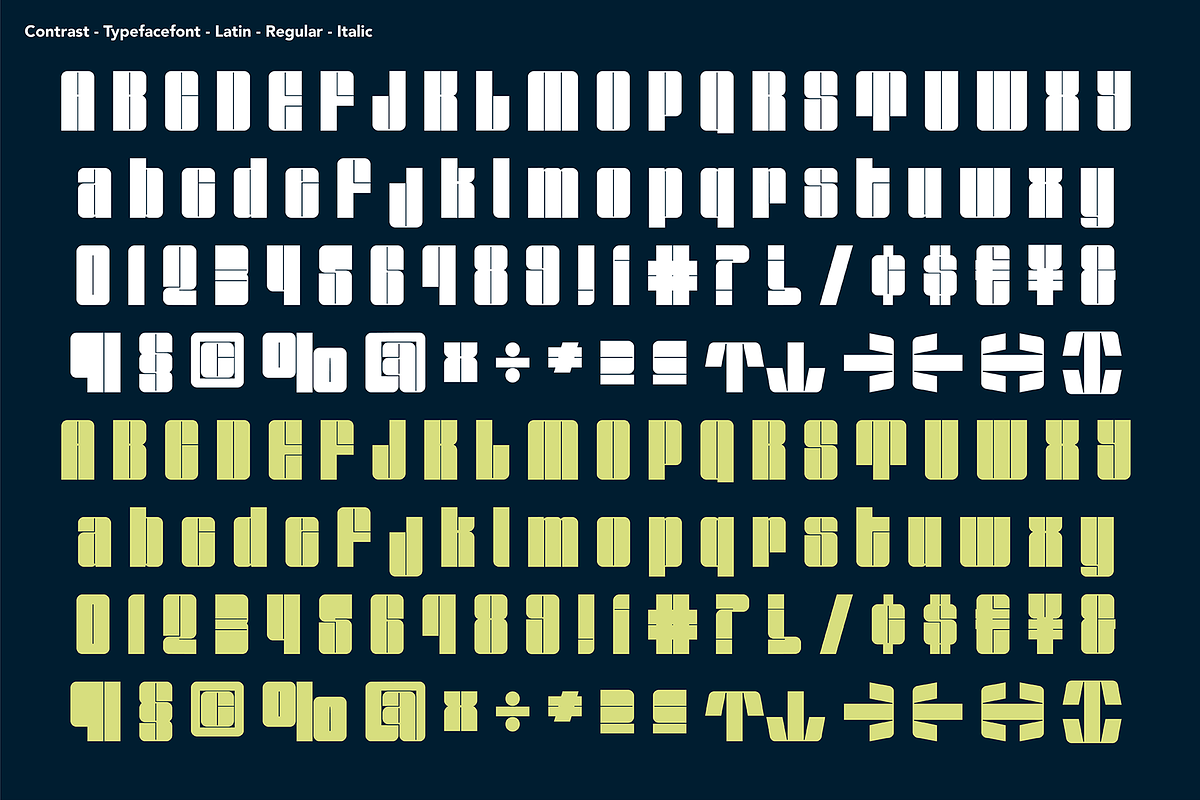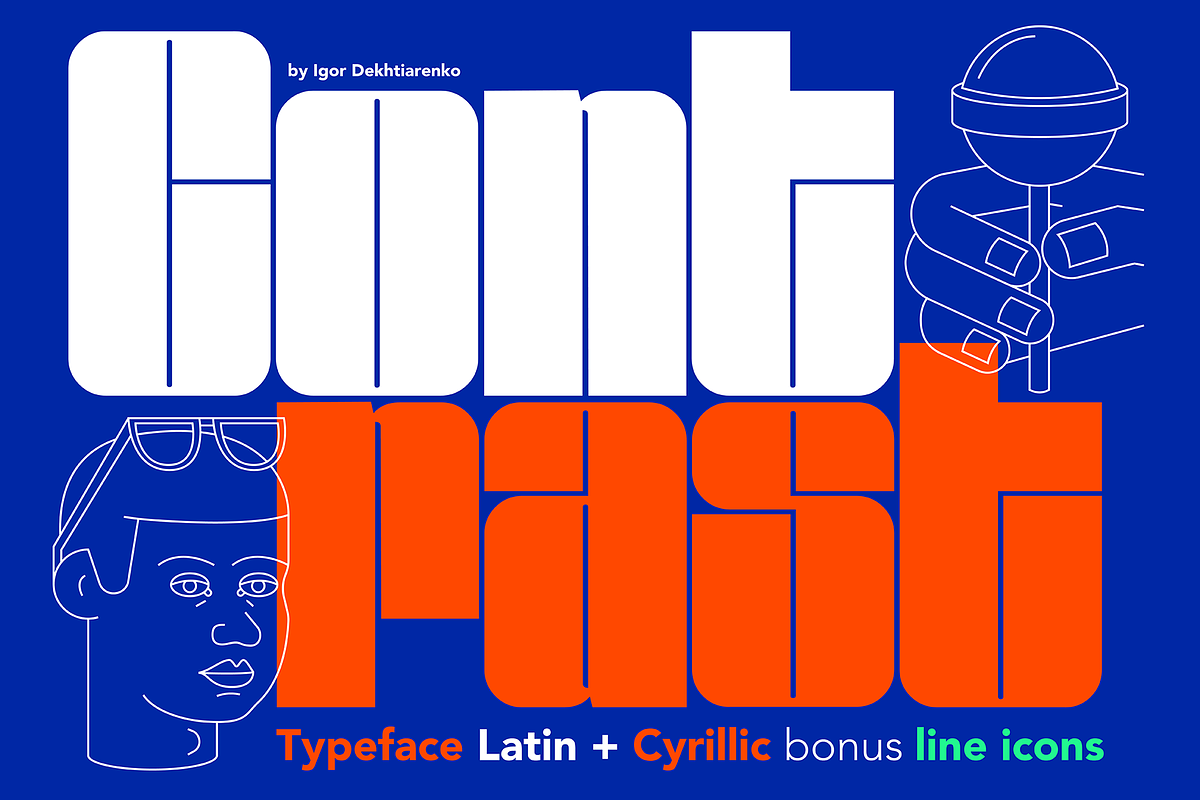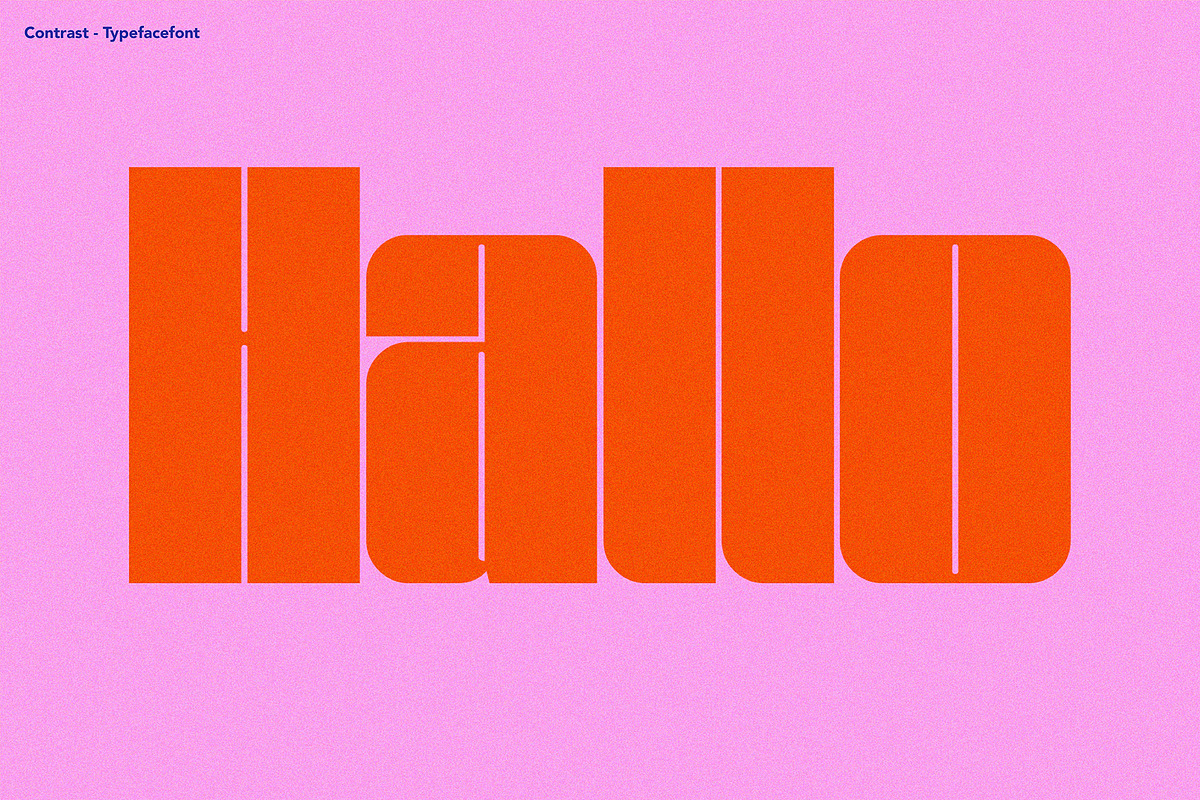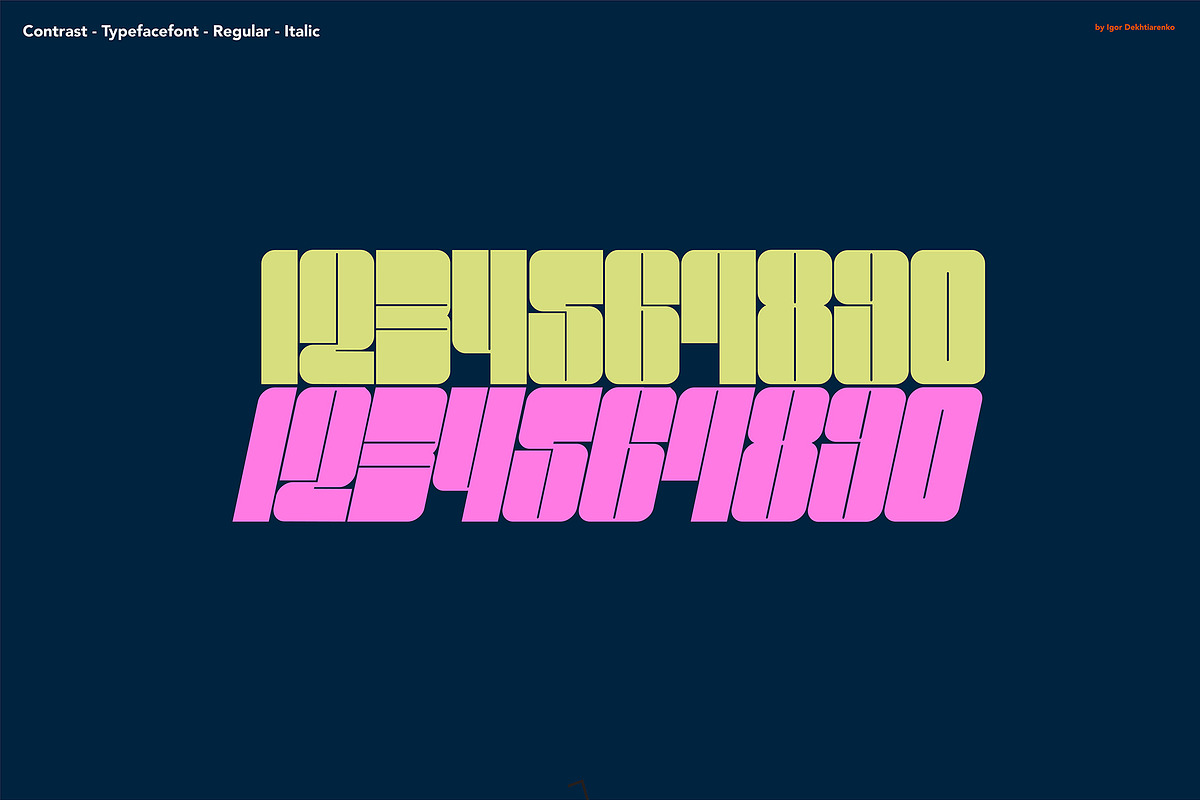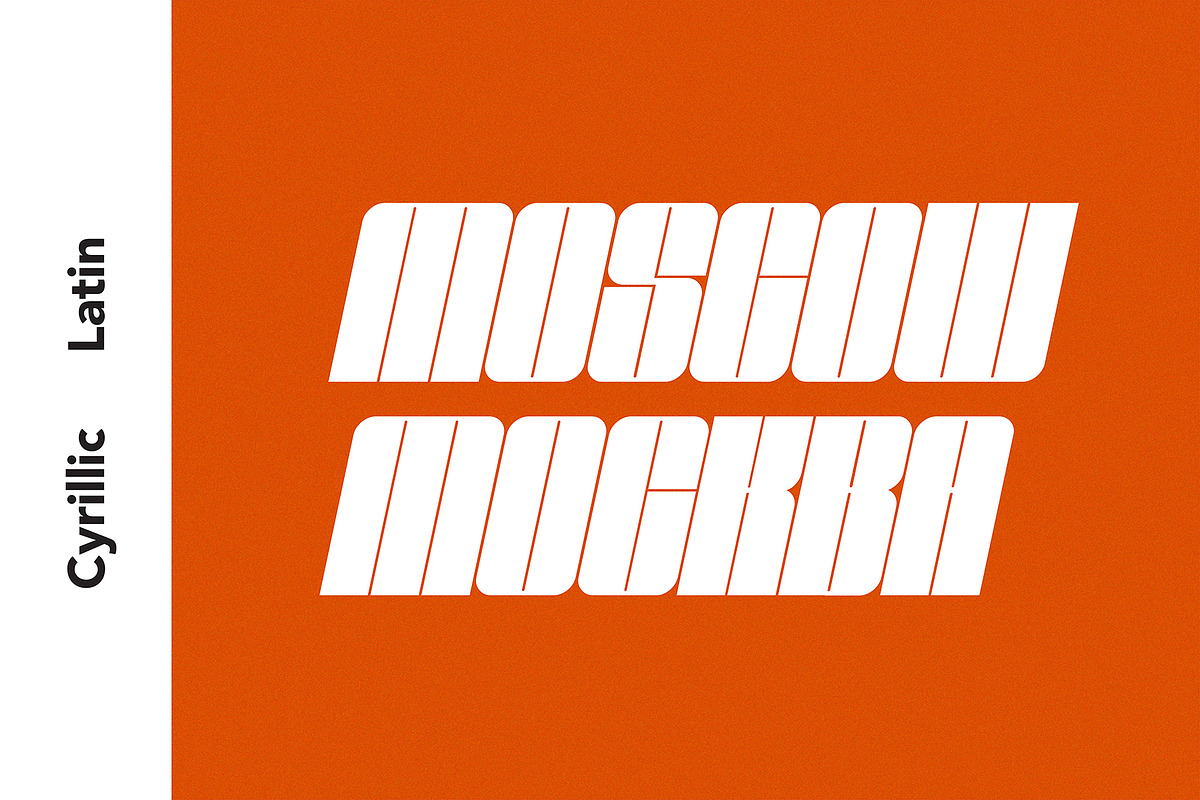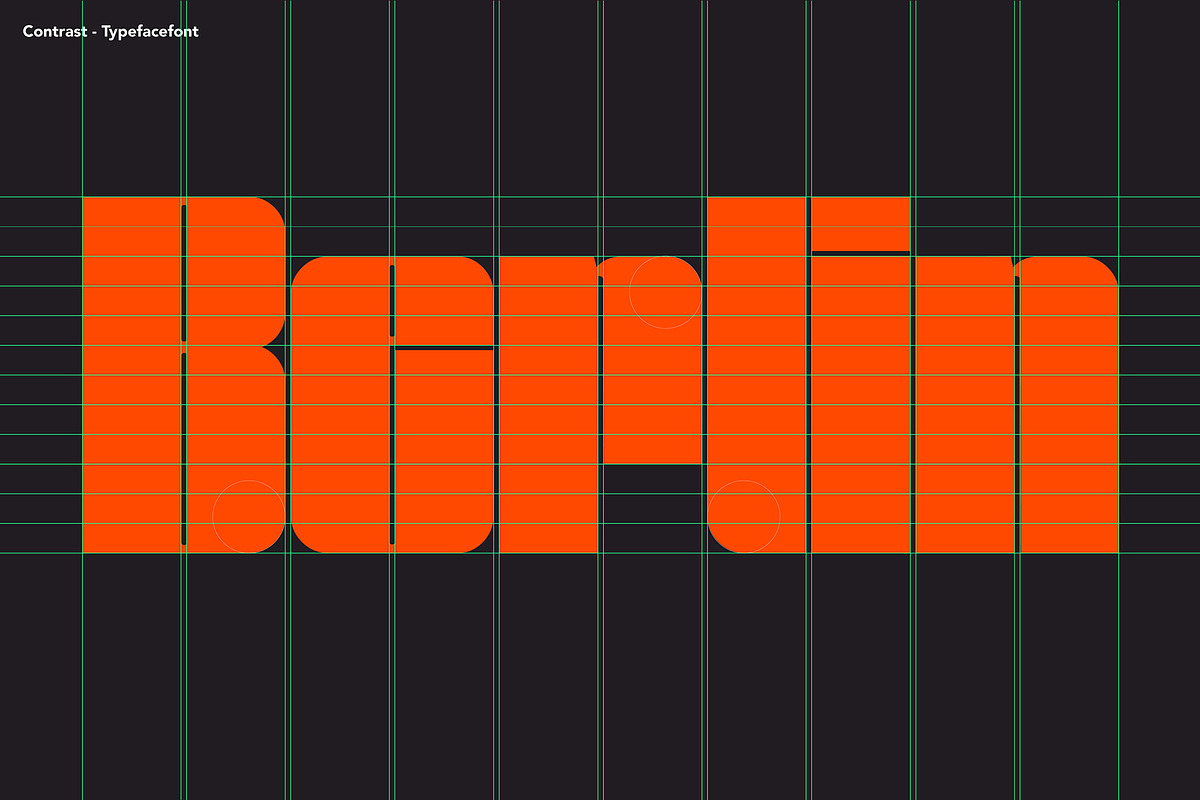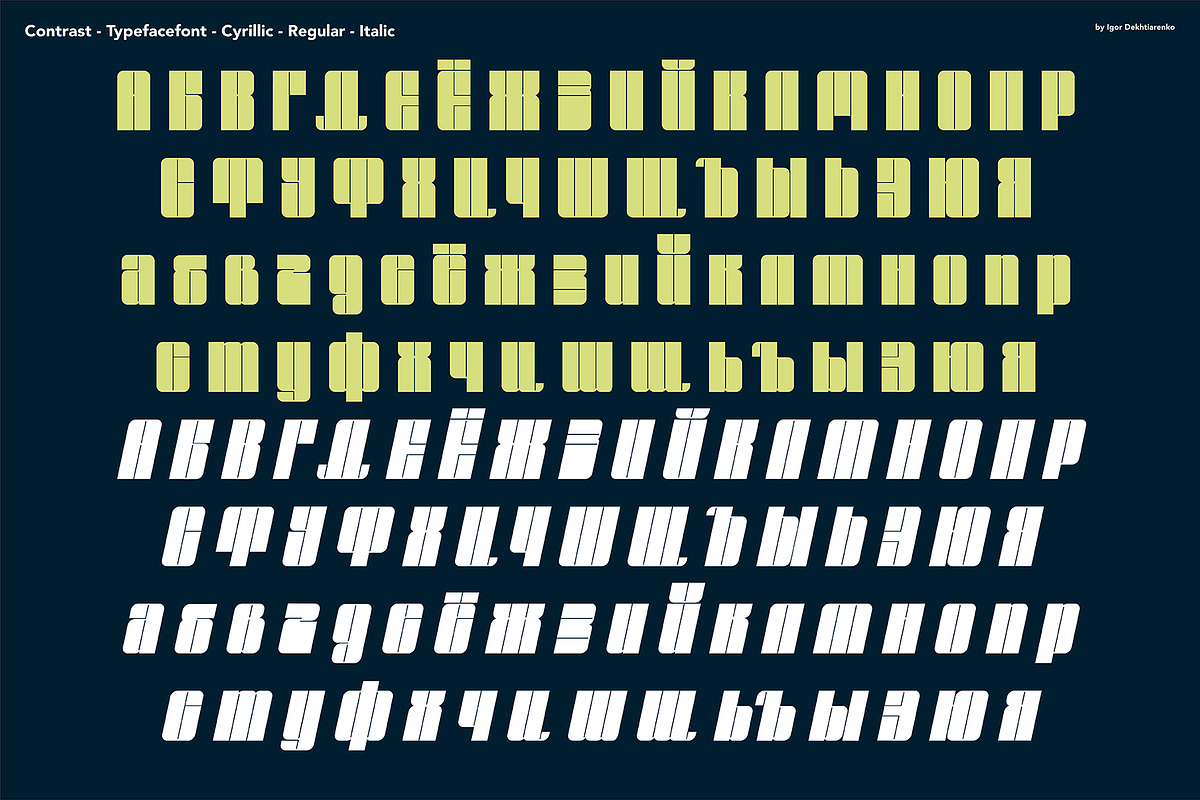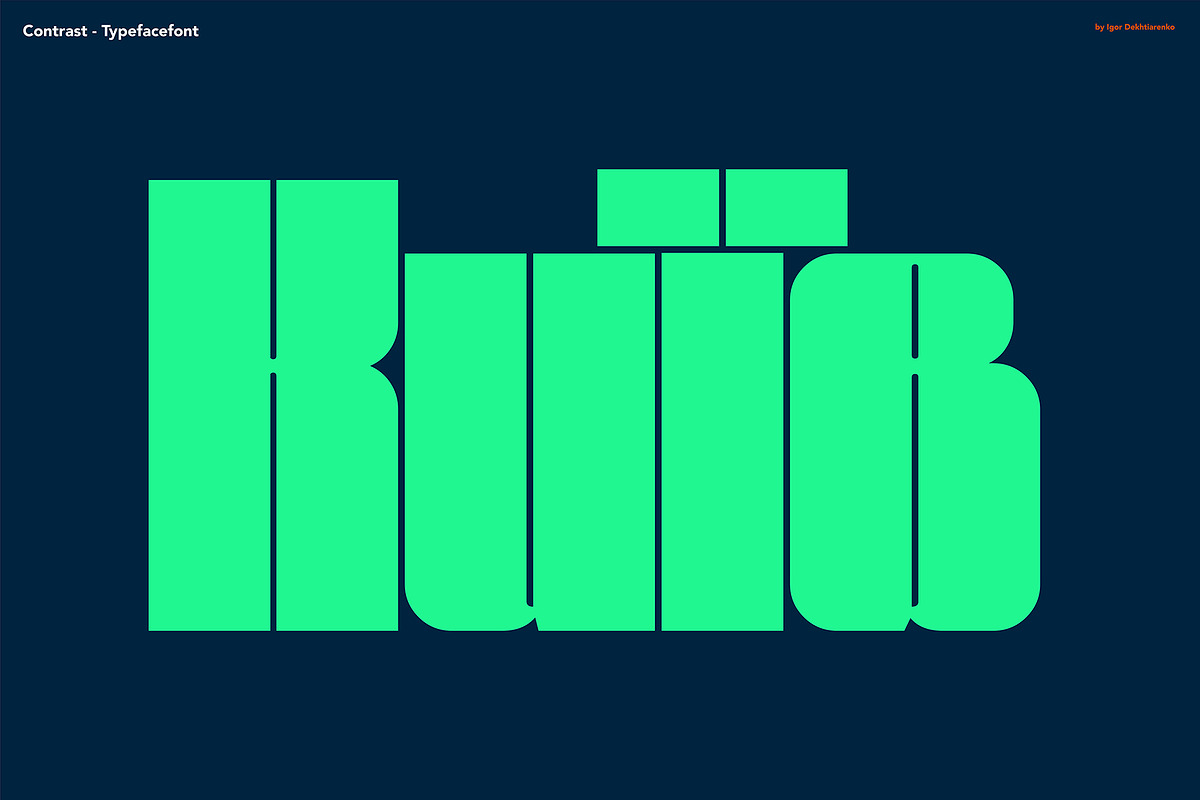
Contrast Font + Extras
CONTRAST DYSPLAY FONT
Contras is a geometric display family that includes 2 various styles for your designing needs. IIncluded in the family is a Sans version and own oblique style.
Contrast works perfect for logos, posters, postcards, t-shirt, packaging and much more!
Contrast includes 2 styles fonts:
Numerals and Punctuation